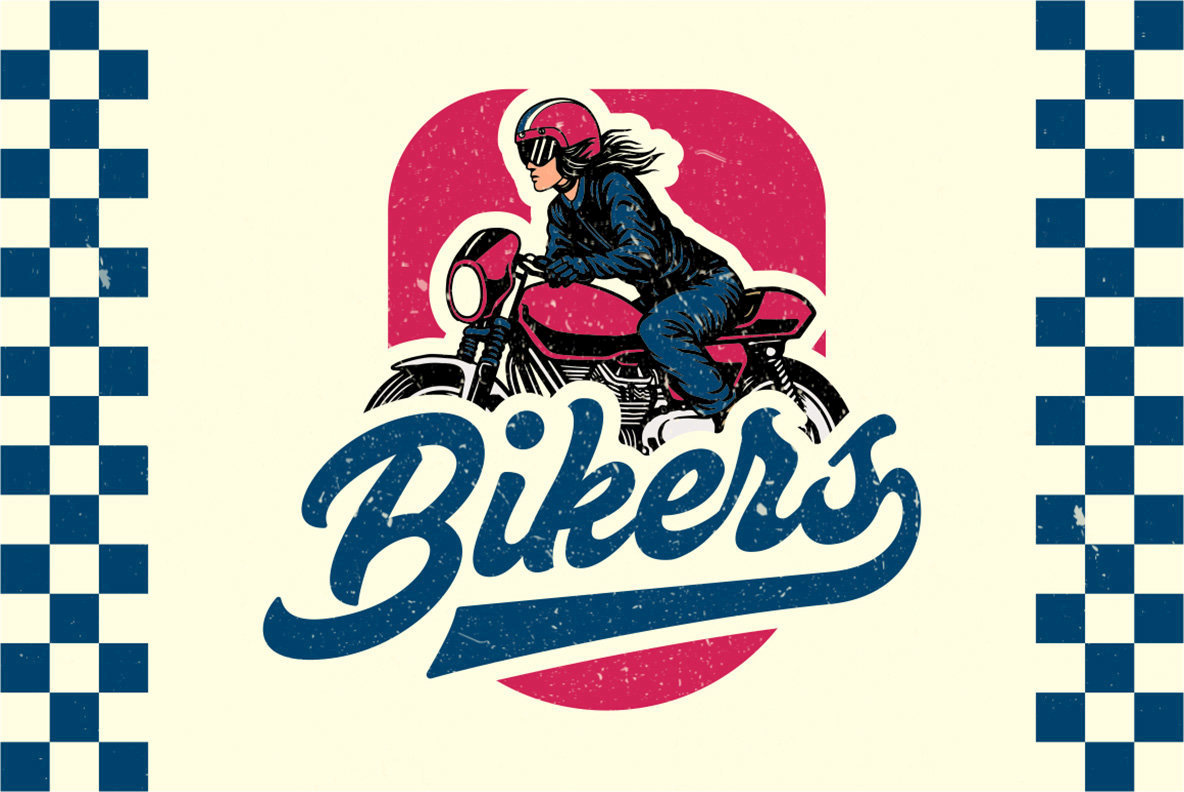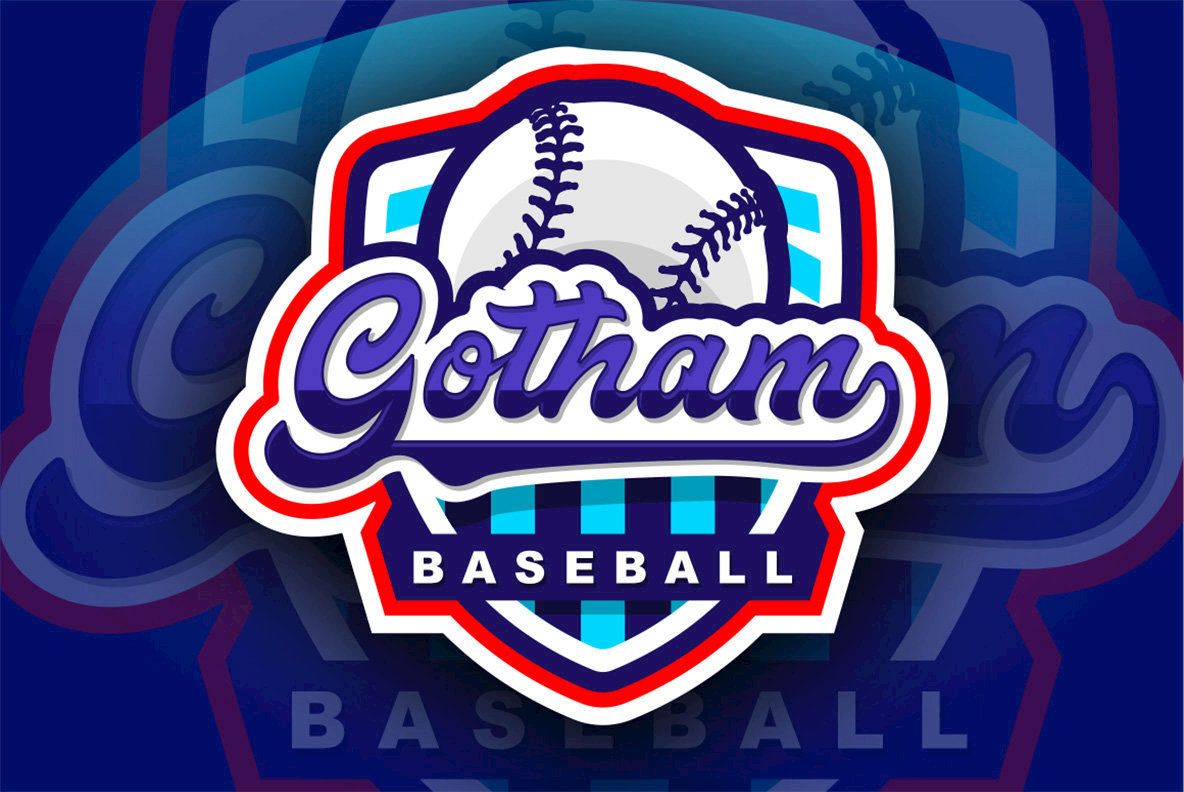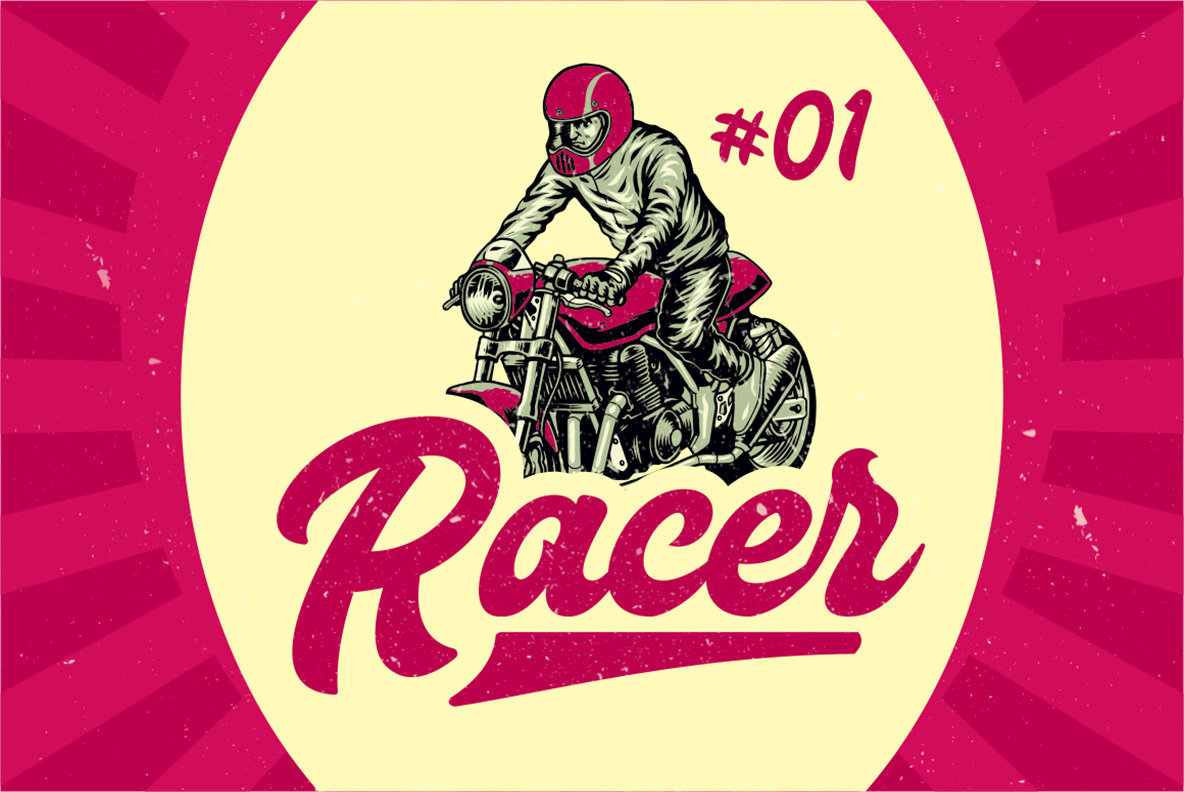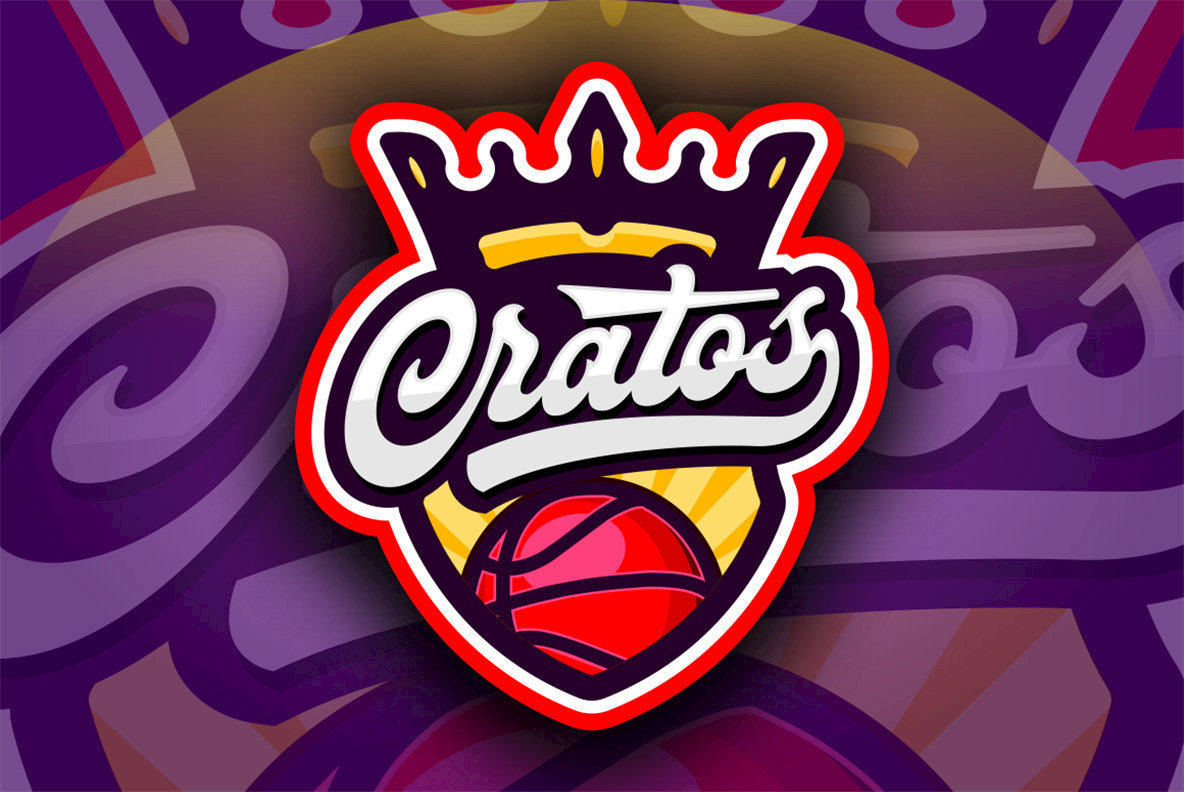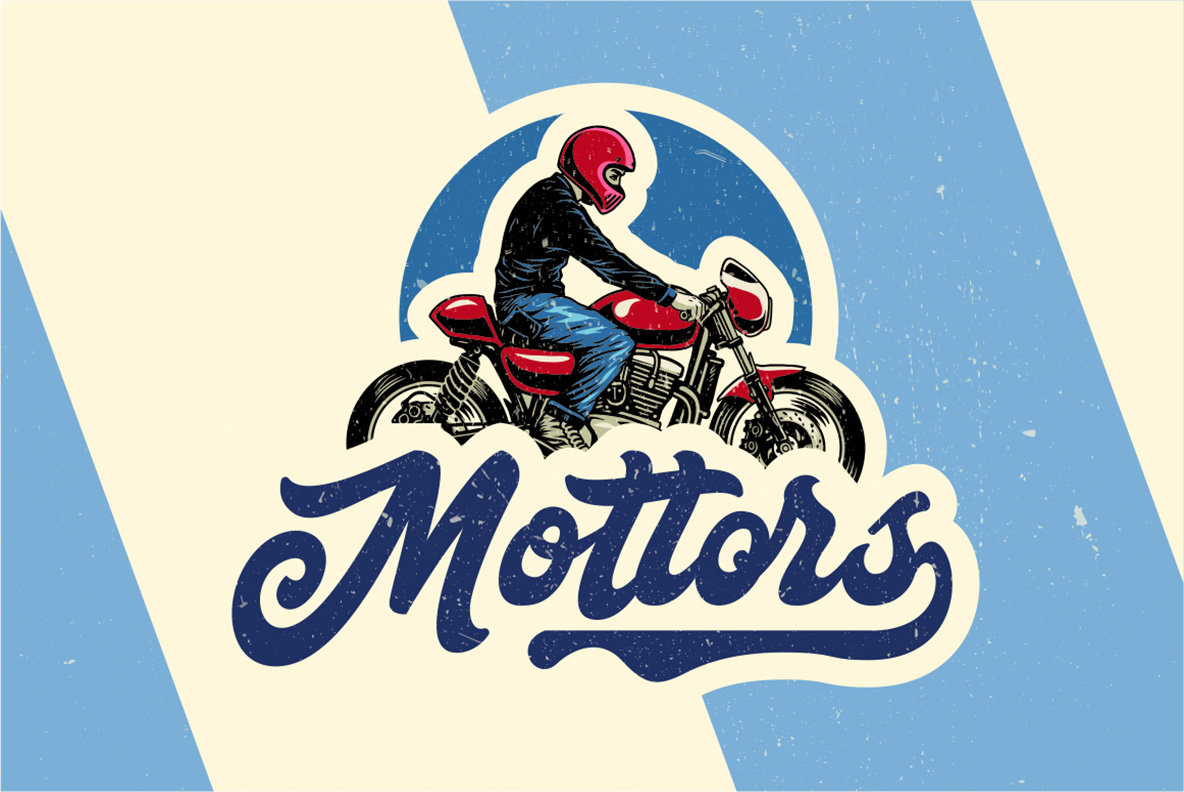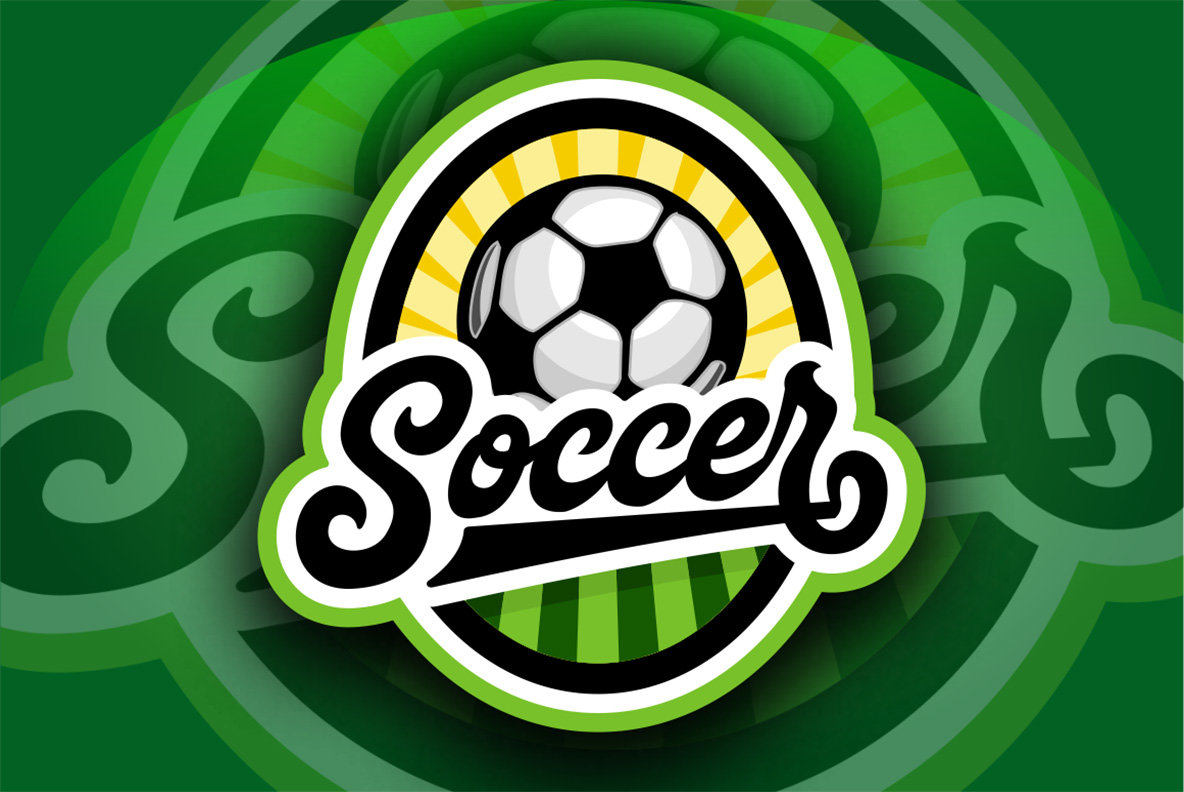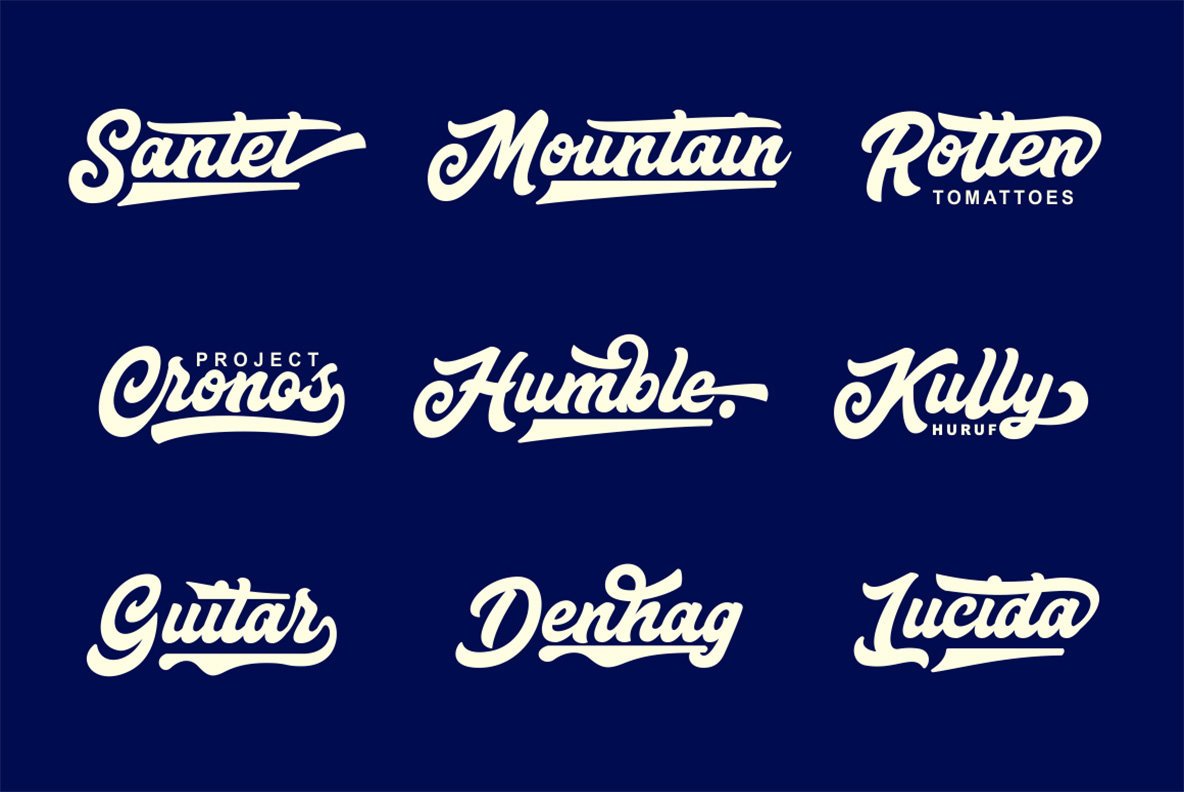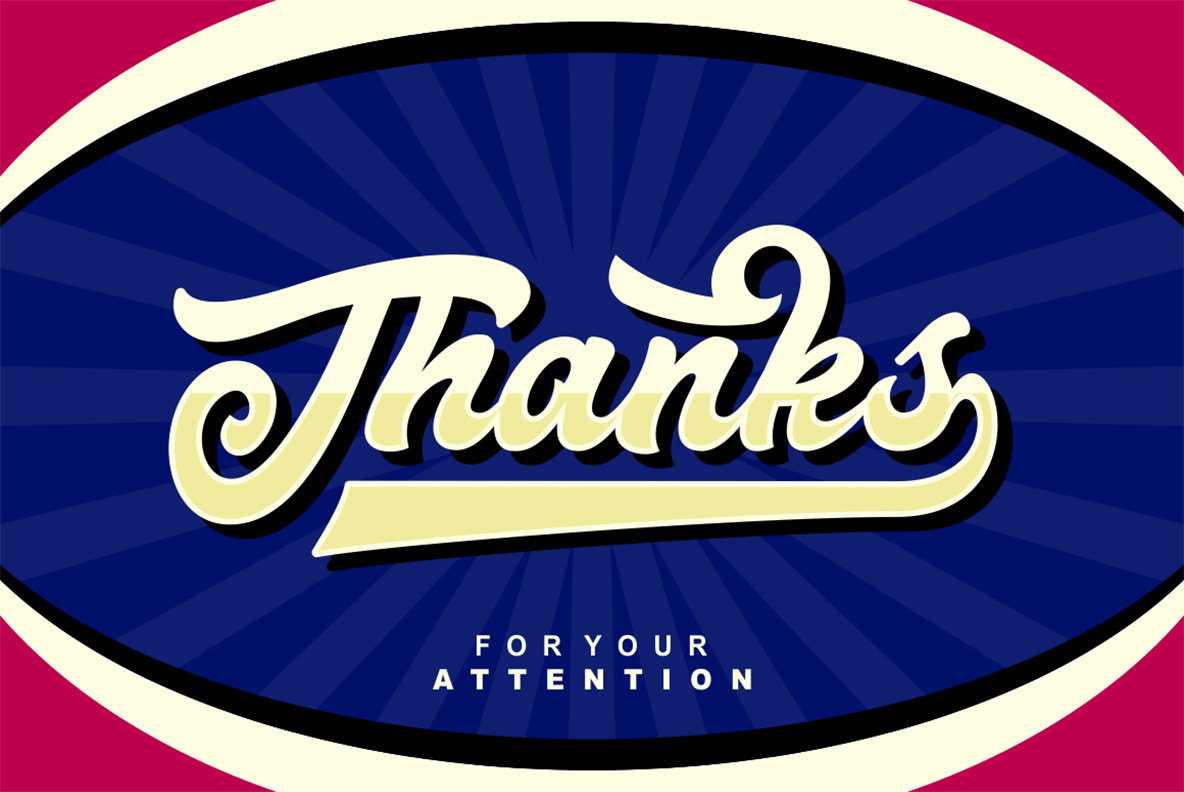
Mattoa Font
Mattoa
Mattoa Swash
Mattoa stands out as a commanding choice within the realm of script typefaces. Its bold strokes and dynamic curves bring a sense of energy and professionalism to any project, making it ideal for branding, advertising, and creative design.Mattoa: Bold Script Typeface for Impactful Designs